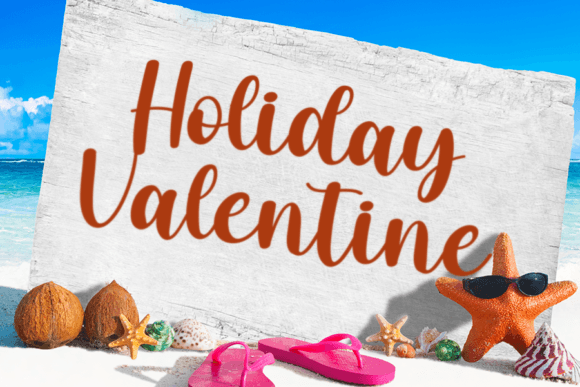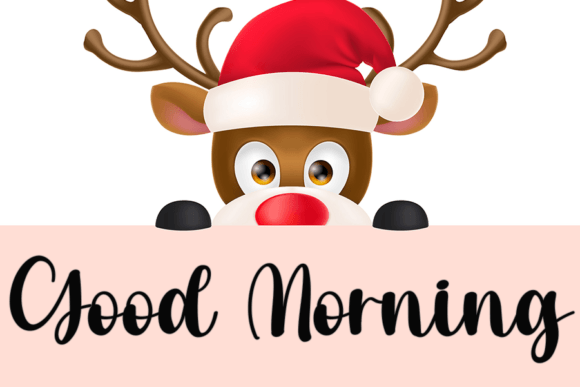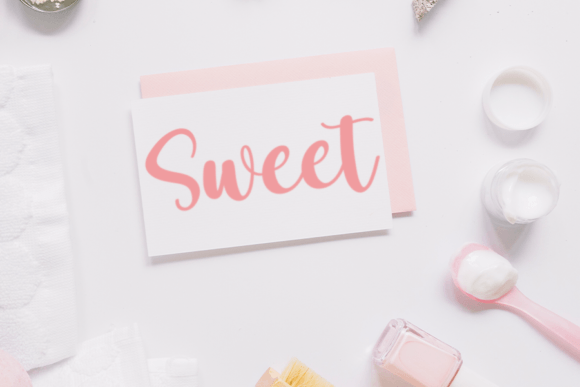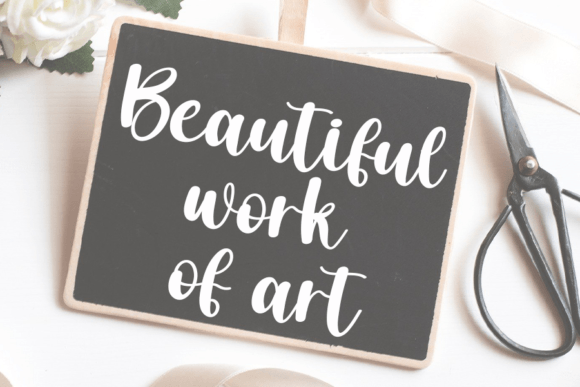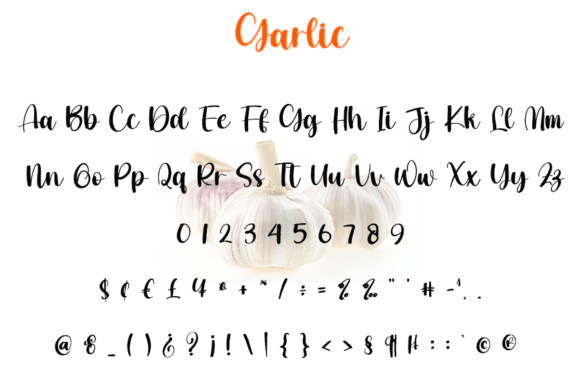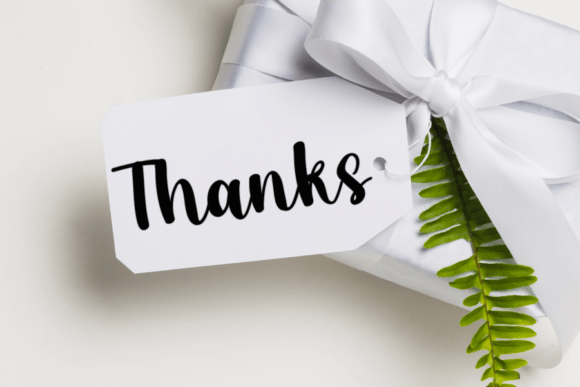
Introducing Garlic Font: Elevate Your Designs with Timeless Elegance
Are you on the hunt for a font that exudes style, sophistication, and a touch of classic charm? Look no further than Garlic Font, a stunning handwritten typeface that is sure to elevate your designs to new heights. Inspired by the timeless beauty of classic calligraphy, Garlic Font brings a contemporary atmosphere to the table, perfect for designers and crafters looking to add a dash of elegance to their projects.
The Story Behind Garlic Font
Garlic Font is more than just a pretty face; it’s a carefully crafted typeface designed to bring balance and variation to your designs. With its roots in traditional calligraphy, this font has been meticulously refined to deliver impeccable form and a sense of fluidity that’s hard to find in digital fonts. Whether you’re working on a logo, a branding project, or simply looking to add some flair to your blog posts, Garlic Font is the perfect choice.
What Makes Garlic Font Stand Out?
- Contemporary yet Classic: Garlic Font strikes the perfect balance between modern style and timeless elegance. Its contemporary atmosphere makes it suitable for a wide range of projects, from modern branding to more traditional applications.
- Handwritten with Love: This font is a true handwritten typeface, boasting a level of personality and charm that’s hard to replicate with generic fonts. Each letter has been carefully crafted to ensure a natural, fluid feel.
- Balanced and Varied: Garlic Font offers a range of variations and ligatures, allowing you to create unique and engaging text that stands out from the crowd.
- Impeccable Form: With a focus on legibility and aesthetics, Garlic Font delivers impeccable form that’s both beautiful to look at and easy to read.
Who Can Benefit from Garlic Font?
Garlic Font is a versatile typeface that can be used by a wide range of designers and crafters, including:
- Graphic Designers: Looking for a stylish and professional font to use in branding, logos, and marketing materials.
- Web Designers: Seeking a font that will add a touch of elegance to websites and blog posts.
- Crafters and Artists: Wanting to add a personal touch to handmade projects, such as stationery, cards, and DIY crafts.
- Branding Experts: Searching for a font that will help create a cohesive and sophisticated brand identity.
How to Use Garlic Font in Your Projects